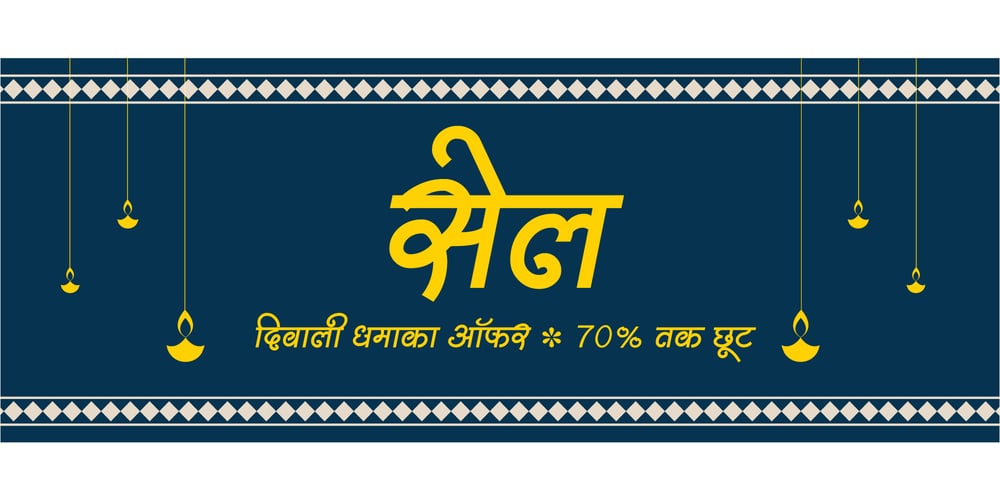
Shree Devanagari 2303 Font Family was designed by Modular Infotech and published by Modular InfoTech. Shree Devanagari 2303 contains 6 styles and family package options. ShreeDev2303 is a font designed for Banners, Book Covers, and Advertising. This font family includes three weights: Light, Regular and Bold. It is well-suited for printing visually appealing cards, Banners and invitation materials. This font gives the effect of artistic text writing.